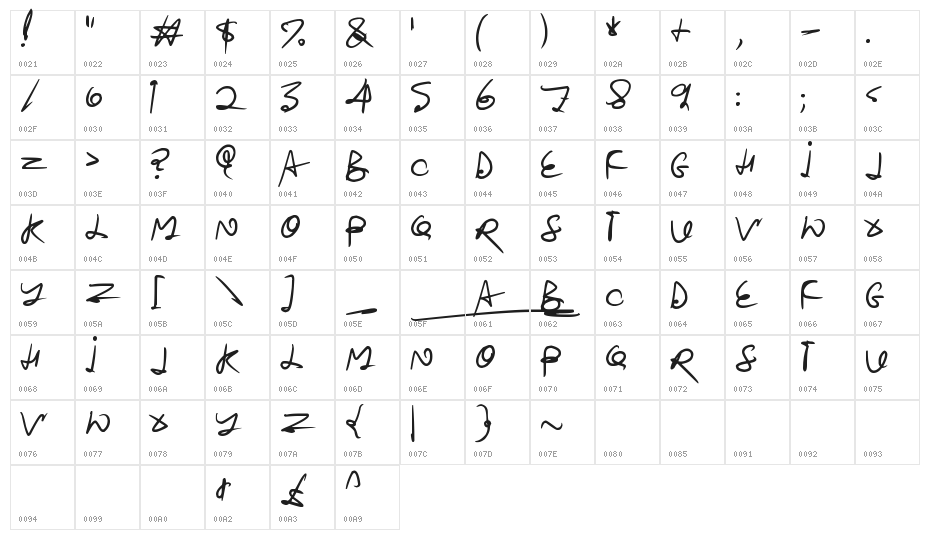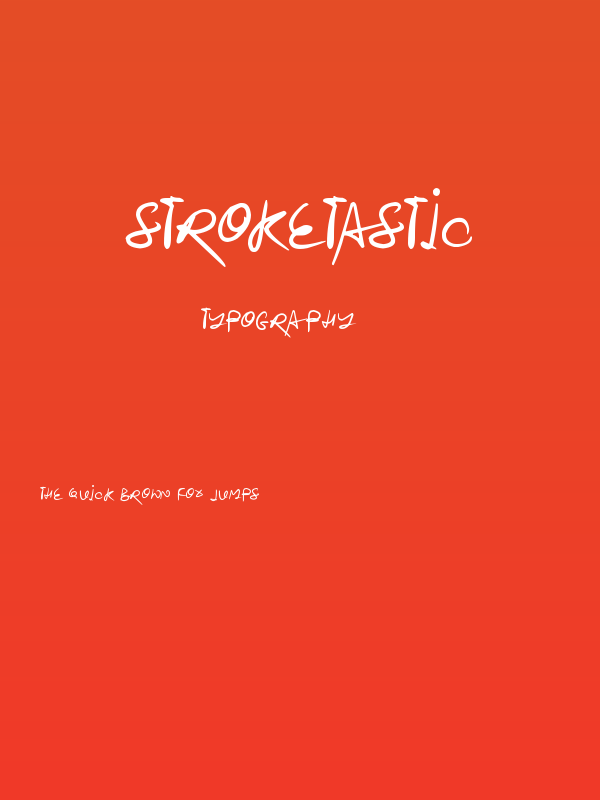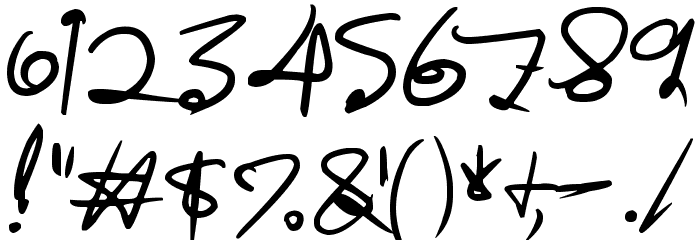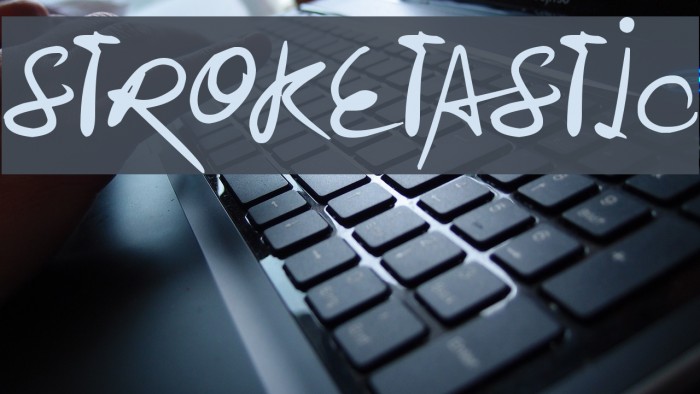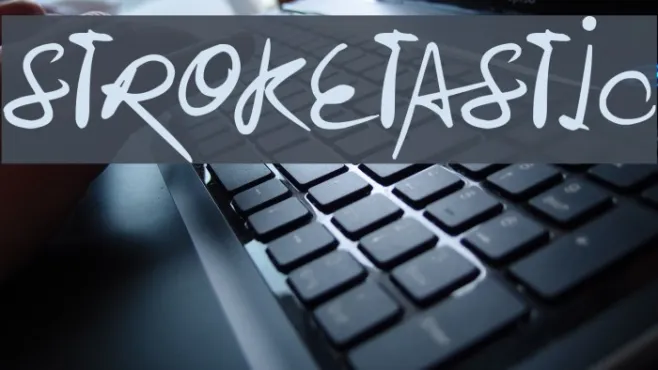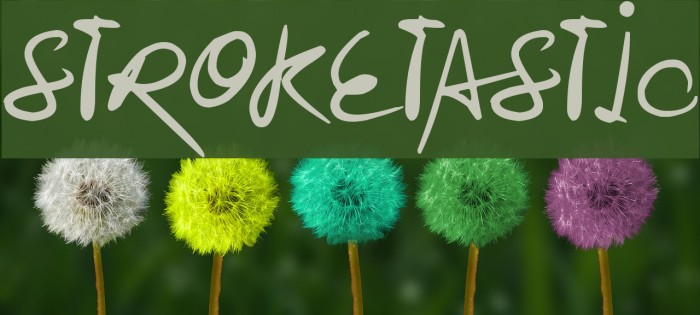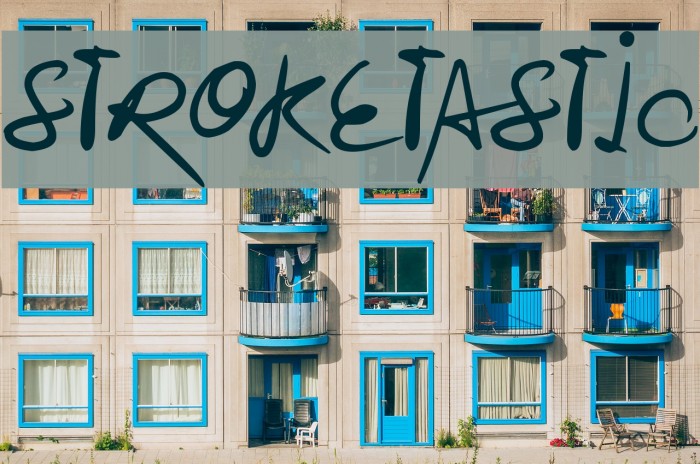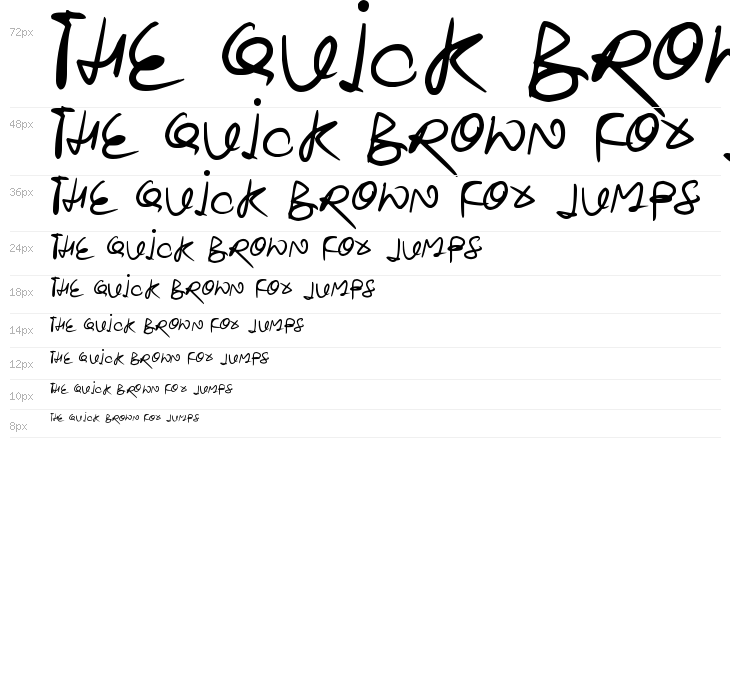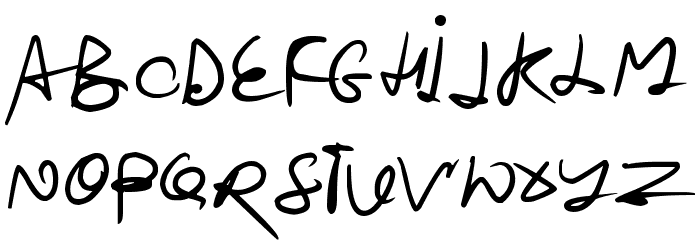
Stroketastic Font
Stroketastic Description
This font exhibits a dynamic and energetic handwritten style, characterized by its bold and expressive strokes. The letters are crafted with a sense of spontaneity, giving them a lively and informal appearance. The uppercase and lowercase characters maintain a consistent flow, with some letters featuring exaggerated curves and angles that add to the overall playful aesthetic. The numerals and special characters are equally expressive, maintaining the same bold and freeform style. This font's unique character makes it stand out, offering a sense of creativity and individuality.
| Use Case | Logos, Posters, Invitations |
| Proposed Projects | Ideal for creative projects such as posters, invitations, and branding materials that require a personal and artistic touch. |